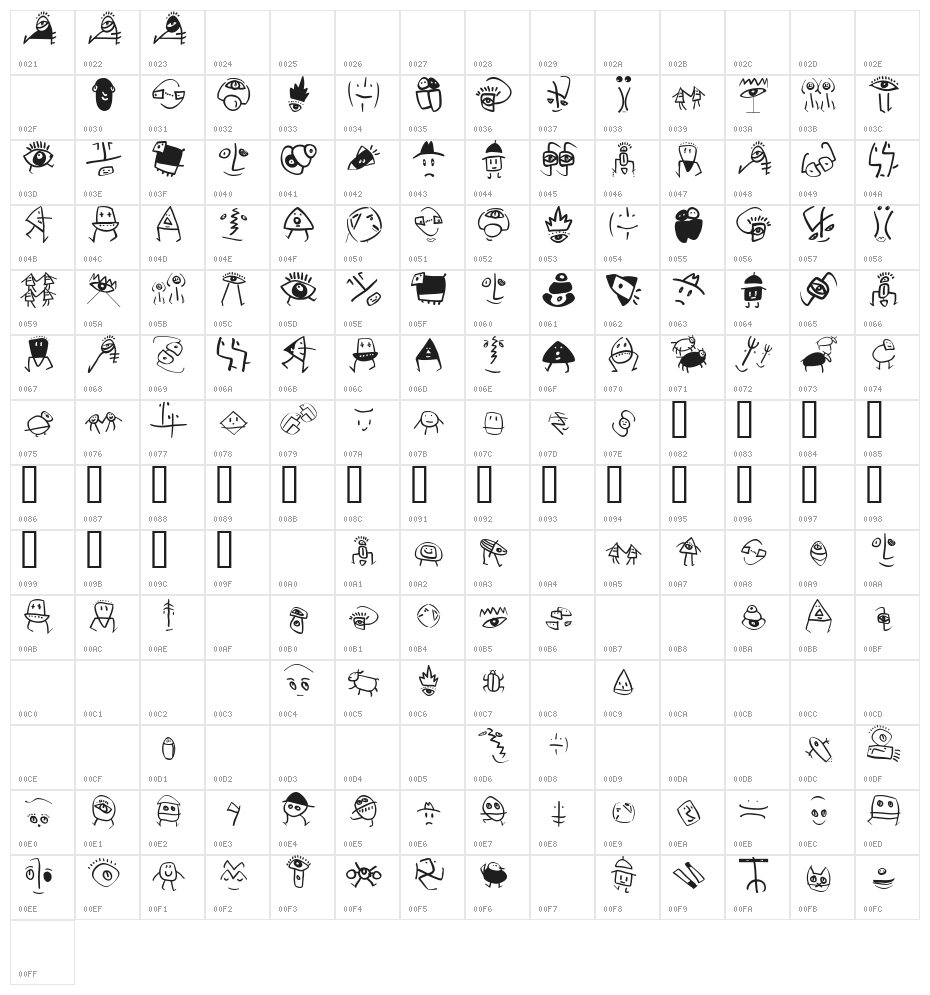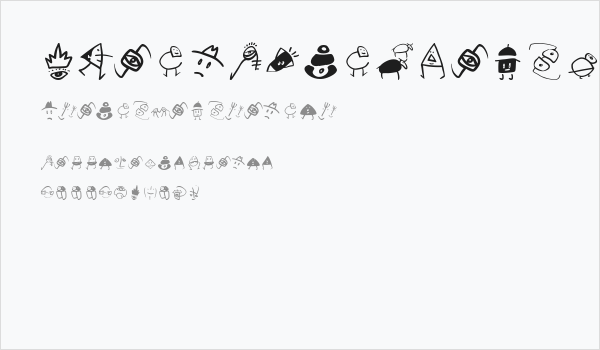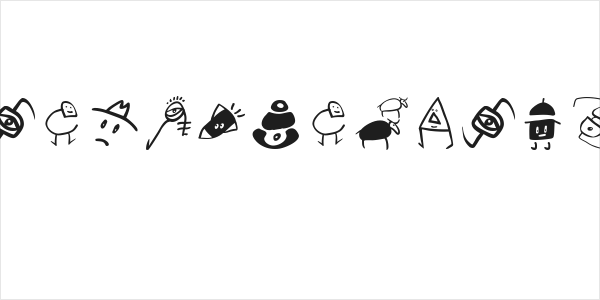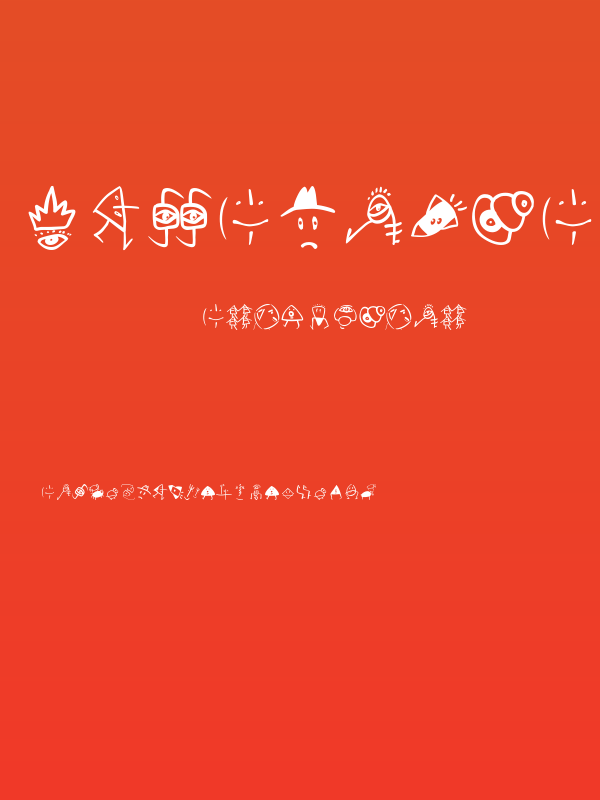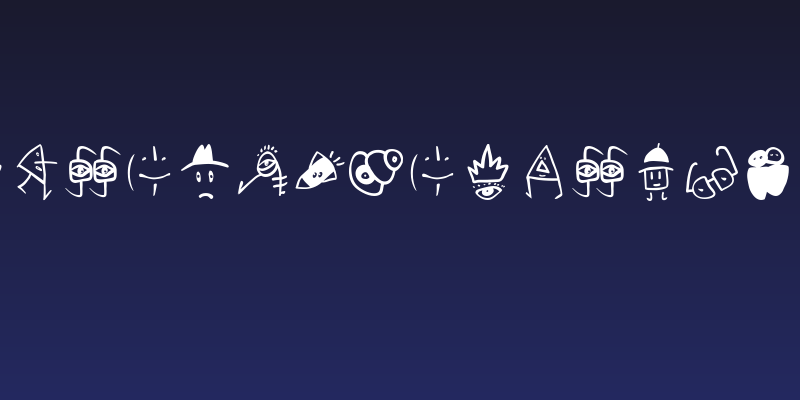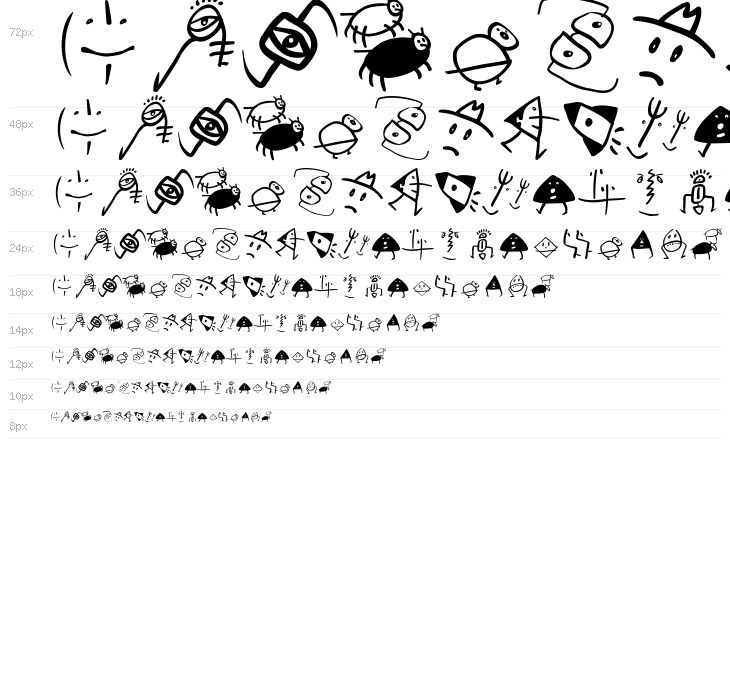
SketchBats Medium Font
SketchBats Medium Description
This is a highly creative and whimsical collection of sketch-like symbols and characters, each with a unique personality. The designs are playful and abstract, featuring a variety of quirky faces, figures, and shapes. The style is reminiscent of doodles or cartoons, with a hand-drawn quality that adds to its charm. The characters are expressive, with exaggerated features and dynamic poses, making them ideal for projects that require a touch of humor and creativity. The overall aesthetic is bold and imaginative, perfect for adding a unique flair to any design.
| Use Case | Logos, Illustrations, Creative Projects |
| Proposed Projects | Ideal for children's books, playful branding, creative posters, or unique merchandise designs. |